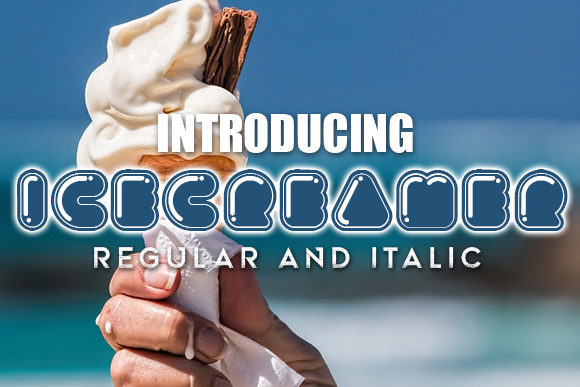
Journey into the world of Icecreamer Font, a delightful display font family that will transform your designs into captivating works of art. Crafted by the visionary vladimirnikolic, Icecreamer Font embodies the essence of coolness, trendiness, and effervescence. Its playful and bubbly characters dance across your screen, inviting you to explore the endless possibilities of visual expression.
Step into a realm where joy and creativity intertwine, where your designs take on a life of their own. Icecreamer Font is the perfect companion for those seeking to add a touch of whimsy and charm to their projects. Its versatile nature allows it to effortlessly adapt to a myriad of design aesthetics, from whimsical flyers to enchanting wedding invitations.
Unleash your inner artist and let your imagination soar as you immerse yourself in the world of Icecreamer Font. Its user-friendly interface and extensive character set make it a joy to use, ensuring a seamless and enjoyable design experience. Whether you're a seasoned professional or just starting your creative journey, Icecreamer Font will elevate your projects to new heights of visual appeal.
With Icecreamer Font, your designs will burst with personality and charm, capturing the attention of all who encounter them. Its unique and eye-catching characters will make your flyers, posters, and social media graphics stand out from the crowd, leaving a lasting impression on your audience.
Don't settle for ordinary fonts that fail to ignite your creative spark. Embrace the magic of Icecreamer Font and watch as your designs transform into captivating masterpieces. Its endless variations and playful spirit will inspire you to push the boundaries of creativity and create designs that truly resonate with your audience.